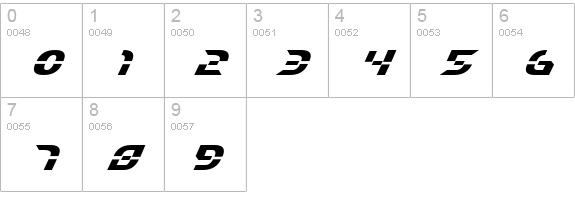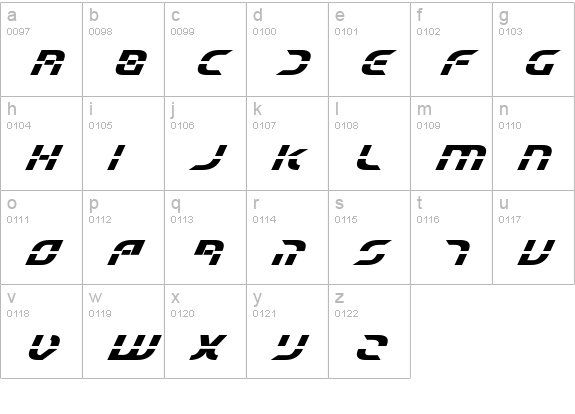
Starfighter Beta Bold Italic is a strong, high-contrast, italic variant in the Starfighter typeface family \xE2\x80\x94 well suited to headlines, attention-grabbing titles, and strong calls-to-action.
Starfighter Beta Bold Italic is a powerful and dynamic font that exudes energy and confidence. Its strong, angular lines and bold strokes make it perfect for adding a futuristic and adventurous touch to any design project. Whether you're creating a sci-fi poster, a high-tech website, or a cutting-edge logo, Starfighter Beta Bold Italic is sure to make a bold statement. The sleek and stylish design of this font is ideal for capturing attention and conveying a sense of speed and innovation. The italicized version adds a touch of elegance and sophistication, making it versatile for a wide range of applications. And the best part? Starfighter Beta Bold Italic is available for free download at FontsMarket.com. So go ahead and give your designs a bold and futuristic edge with this eye-catching font.